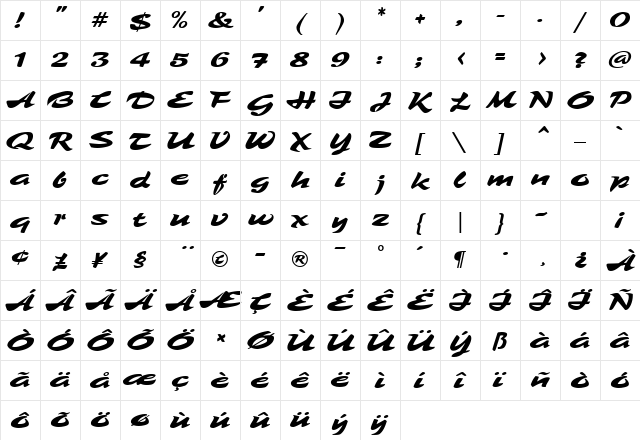
Tambo Script MF Regular
Design Context for Tambo Script MF Typeface
Tambo Script MF brings a calligraphic fluidity to the page — its connecting strokes and expressive curves give it an unmistakably human quality.
Font Pairing: Combine Tambo Script MF with a simple geometric sans for maximum contrast — the tension between flowing curves and clean structure is a classic typographic pairing.
Pro Tip: Use Tambo Script MF for short runs of text — names, titles, or taglines. Extended body copy in script faces tires the eye quickly.